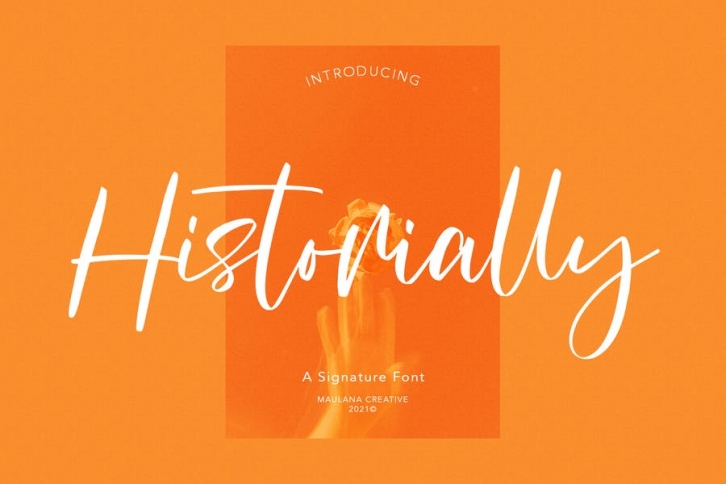
Historially is casual signature font, with clean contrast stroke, slanted and fun character. It has Opentype features ligatures of character, To give you an extra creative work. Historially font support multilingual more than 100+ language. This font is good for logo design, Social media, Movie Titles, Books Titles, a short text even a long text letter and good for your secondary text font with sans or serif. Make a stunning work with Historially font.